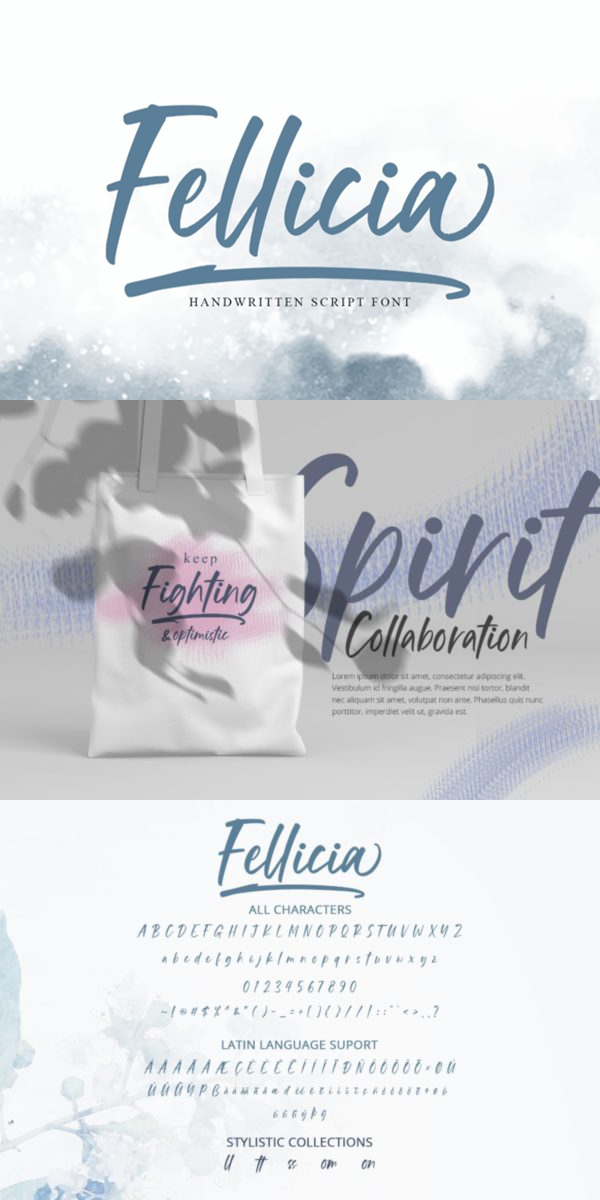
Fellicia Font
About Fellicia
Fellicia is a modern handwritten font. With a classy and natural handwritten style, it brings a classy and chic typeface. Fellicia is best used for weddings, branding, logotype, and quotes.
– Beautiful Ligatures